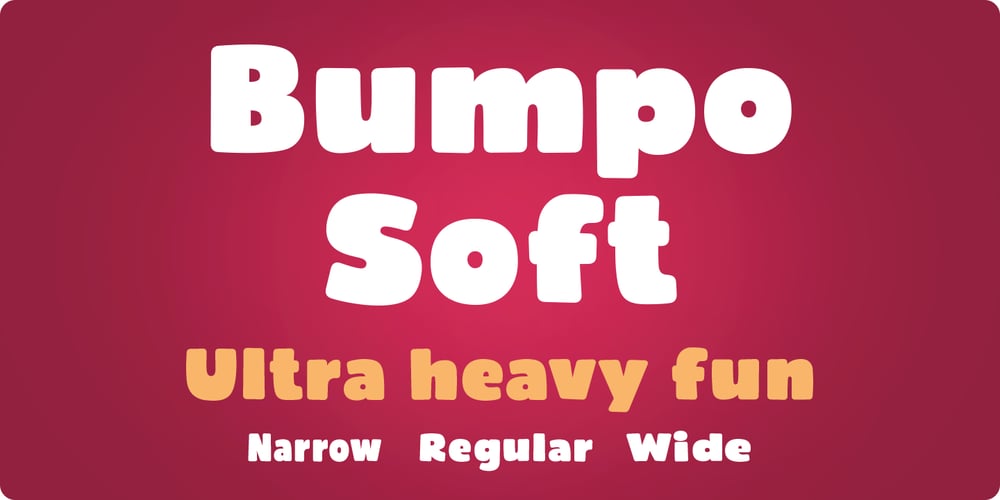
Bumpo Soft Font Family was designed by Deepak Dogra and published by Graphite. Bumpo Soft contains 1 styles and family package options. Bumpo Soft is a chunky and a fun display typeface family with rounded edges. It is the softer version of Bumpo. With an extra heavy but friendly personality, Bumpo Soft works well for posters, food packaging, children’s products and books, or any communications which needs to be friendly, fun, casual or loud.